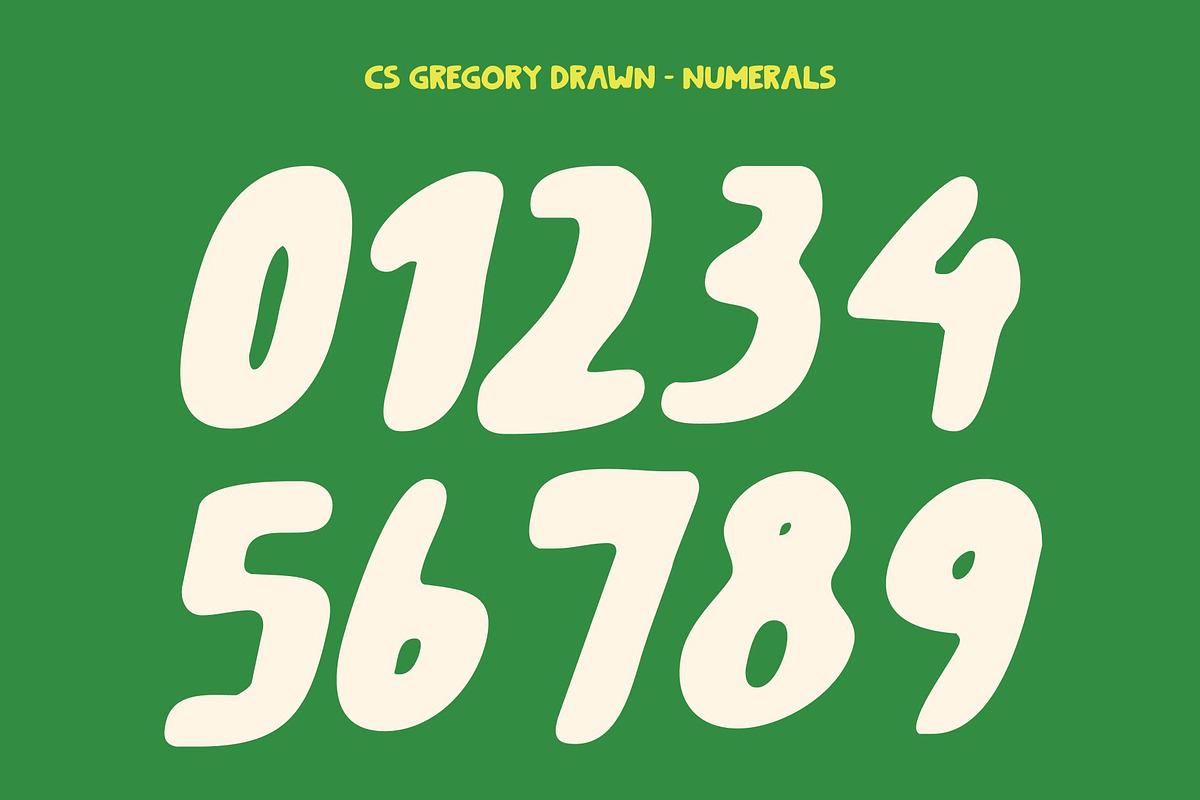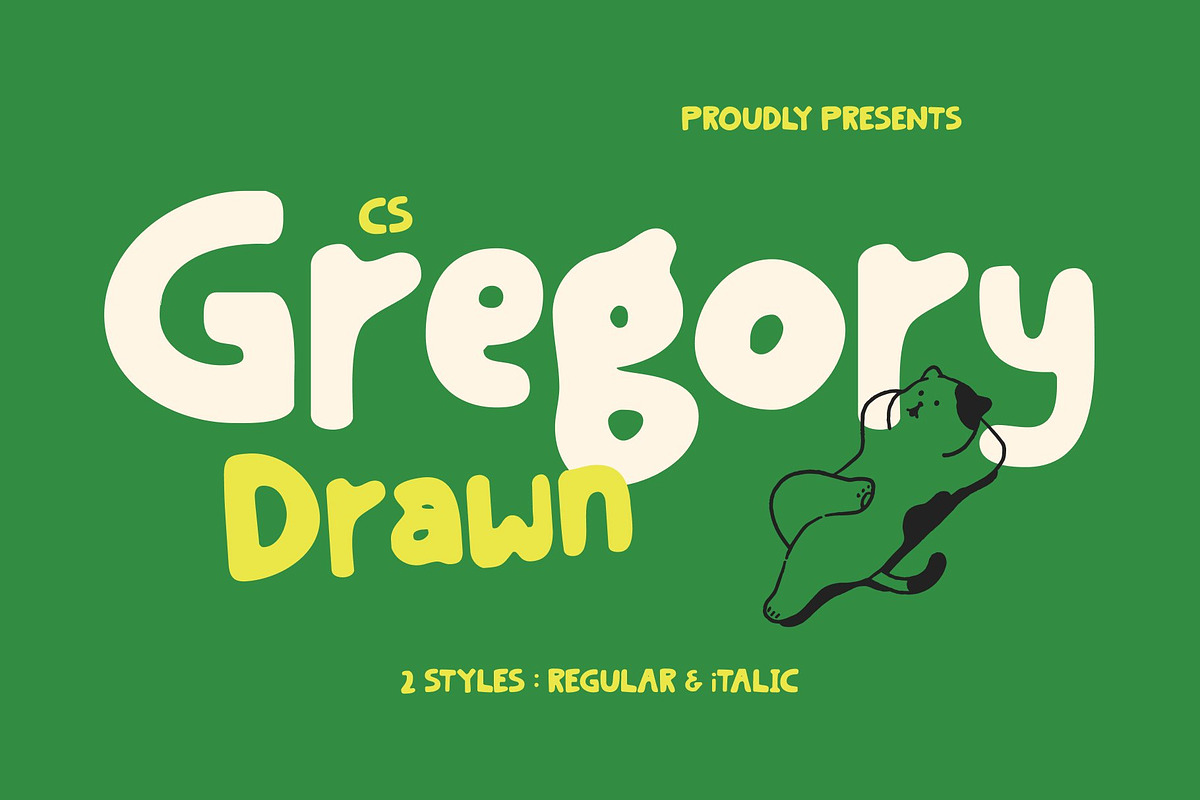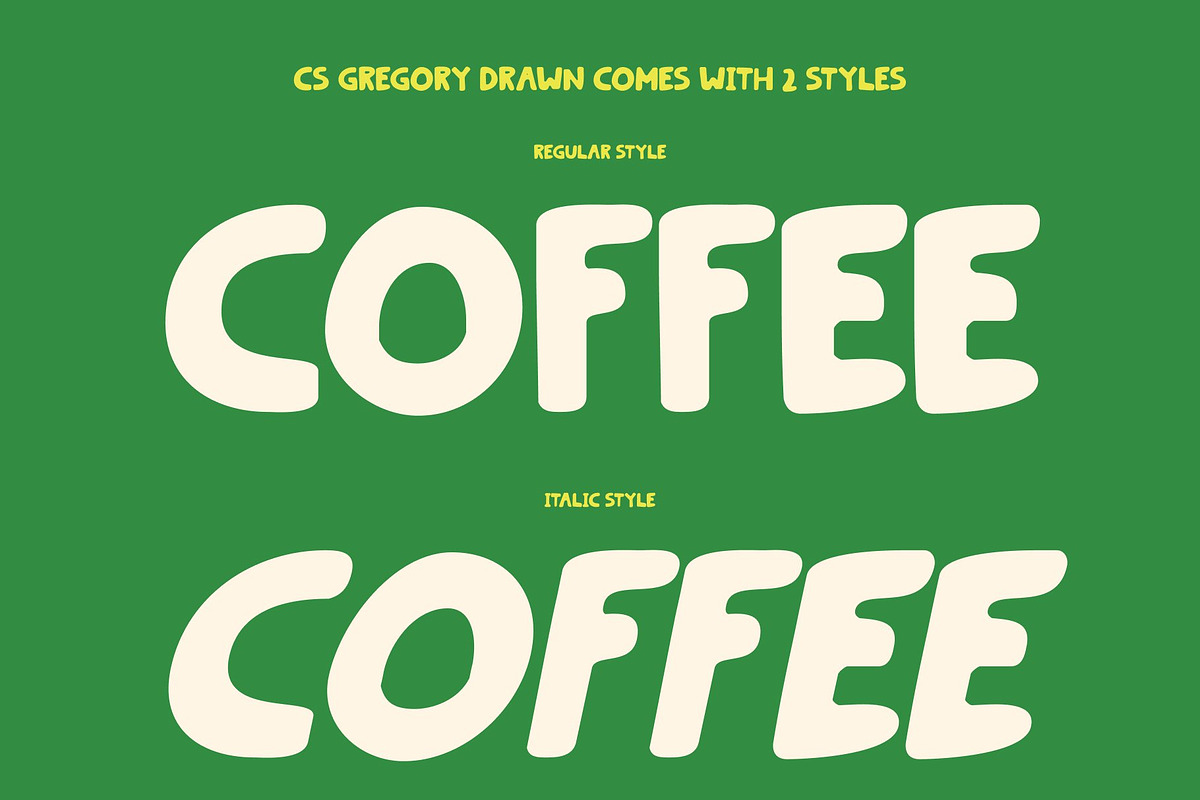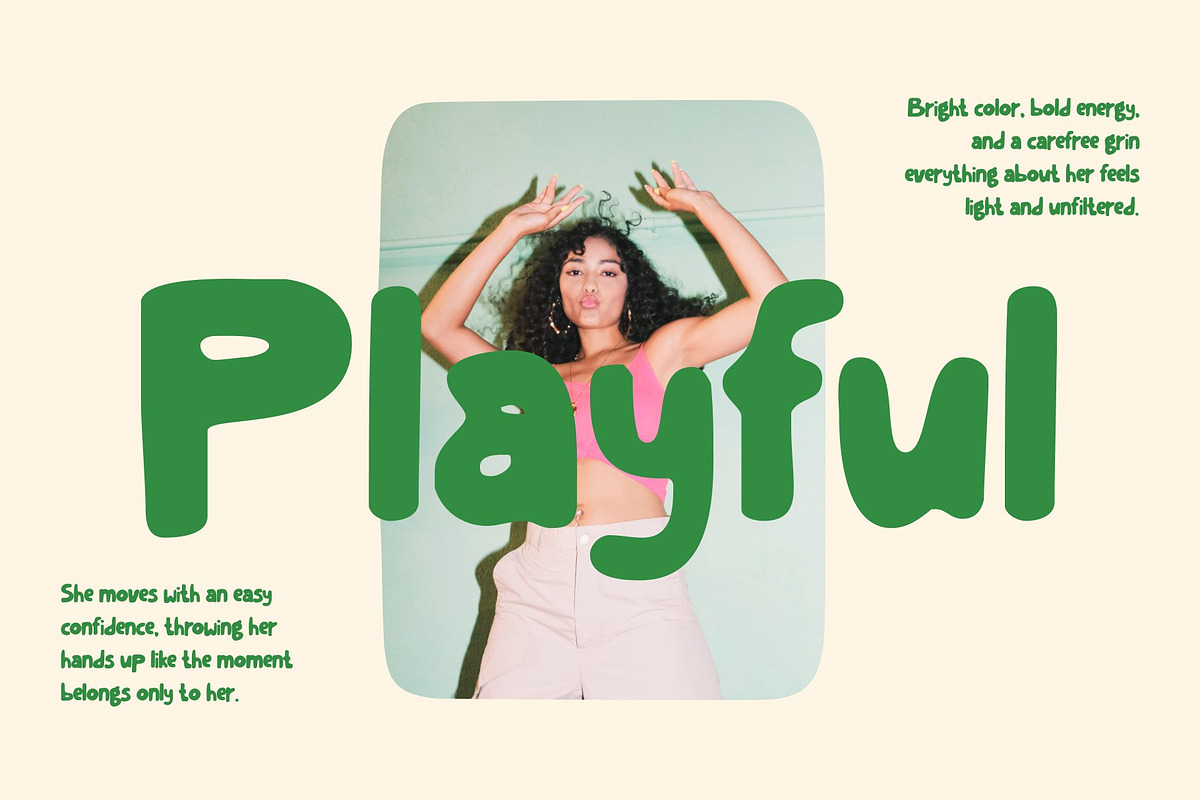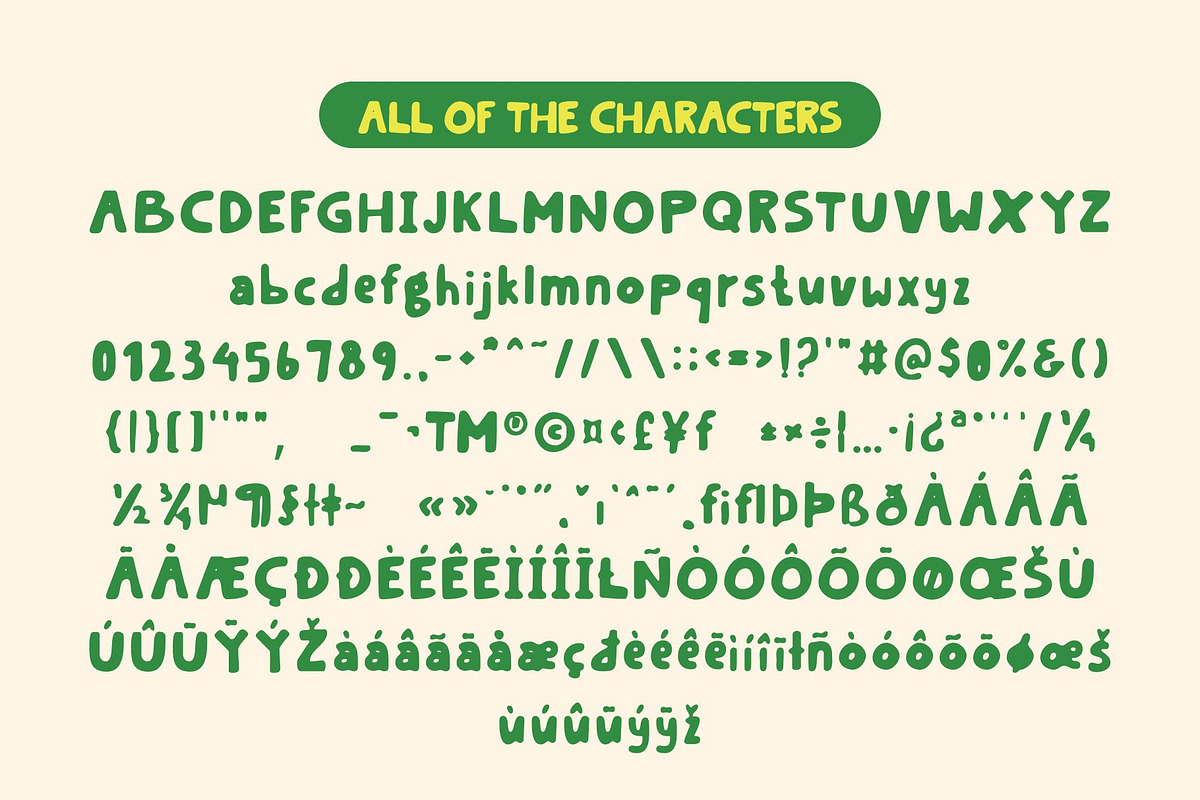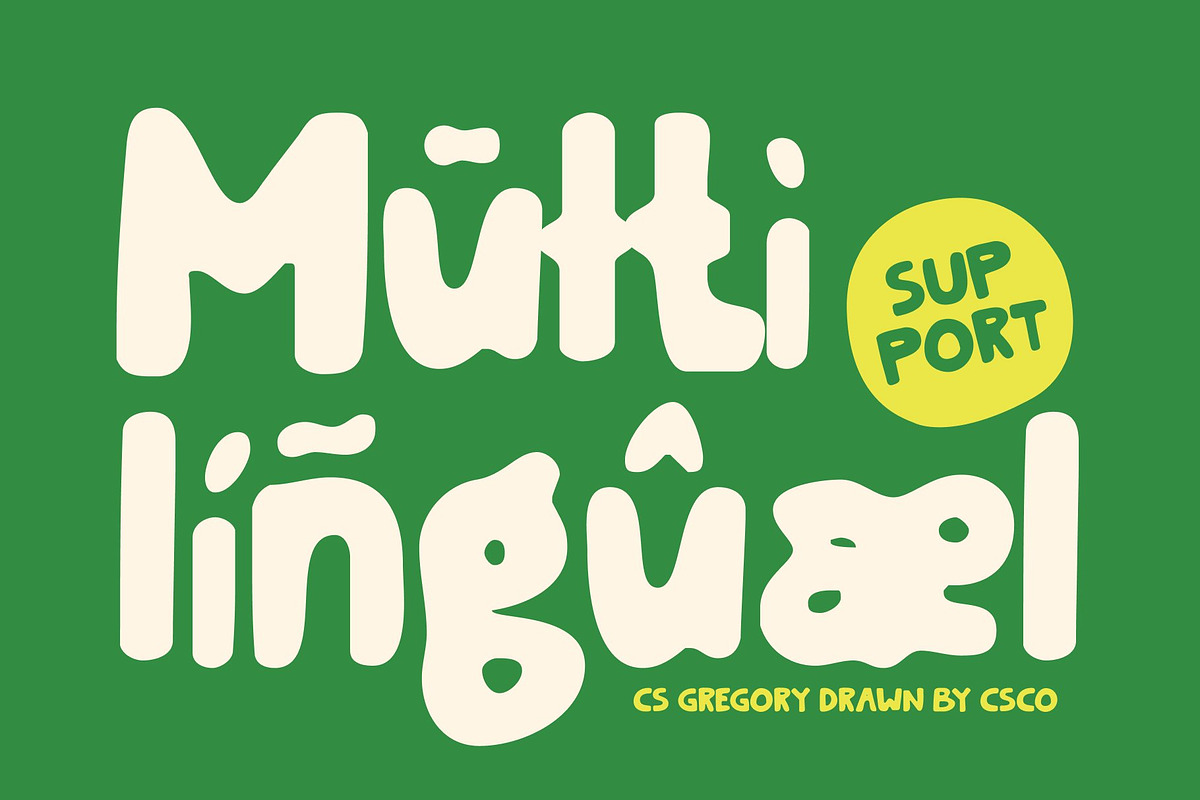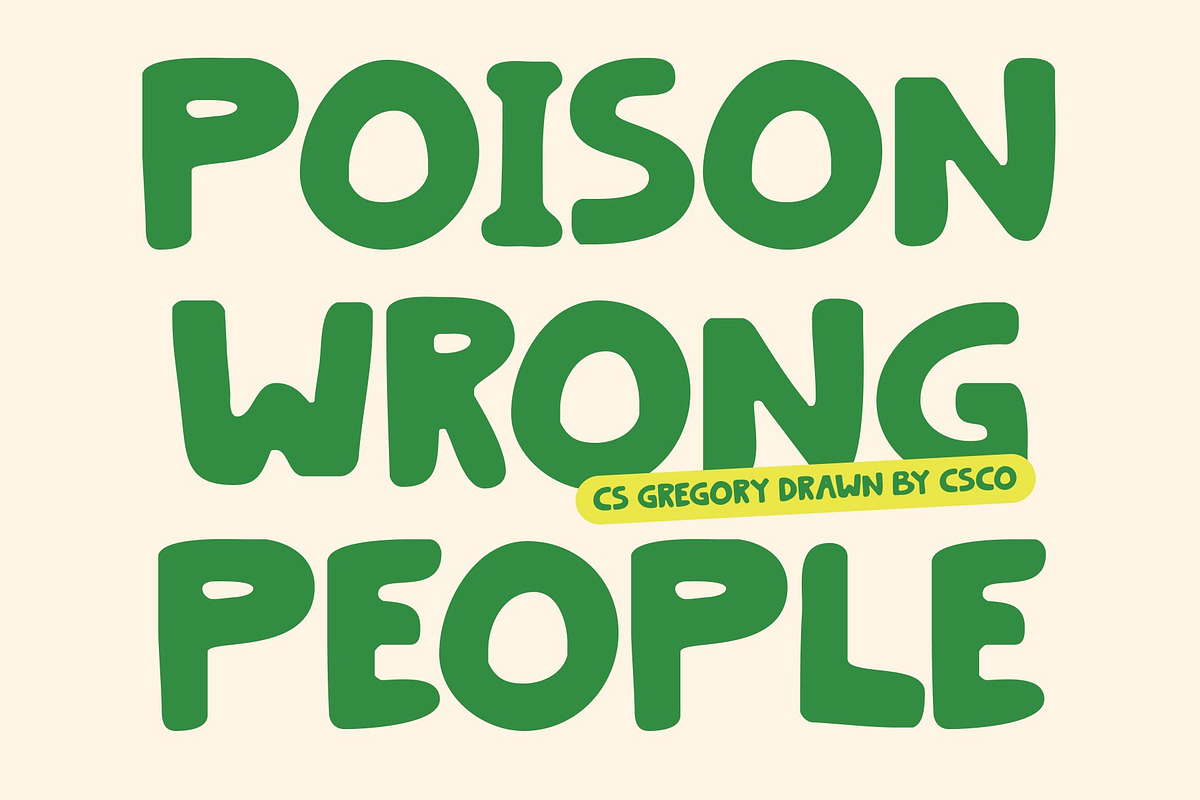
CS Gregory Drawn
CS Gregory Drawn – Playful Personality with Quirky Charm
Modern Sans Serif with Hand-Drawn Energy This blends clean, modern sans serif forms with the spontaneity of hand-drawn lettering. Each character features slight irregularities and subtle texture, giving the font a lively, human touch. The drawn effect transforms simple typography into expressive, approachable lettering that feels playful, creative, and full of personality.
Whimsical Shapes that Radiate Joy The quirky proportions and unconventional curves of this font create a cheerful “ugly-beautiful” charm. Its slightly messy, hand-crafted aesthetic adds movement and energy to every word, making designs feel fun, approachable, and full of life. This playful irregularity turns text into a visual expression of happiness.
Perfect for Bold, Creative Branding Ideal for posters, logos, editorial layouts, and lifestyle projects, this font shines wherever personality matters. Its handcrafted details and lively rhythm help brands stand out, adding warmth, originality, and artistic flair to youth-oriented designs, art events, and creative campaigns.
Typography That Speaks with Personality This font isn’t just a font it’s a celebration of joy and originality. The playful texture, quirky forms, and expressive shapes turn words into lively statements, giving every design a unique, engaging voice that communicates creativity, happiness, and charm.
- CS Gregory Drawn Regular
- CS Gregory Drawn Italic